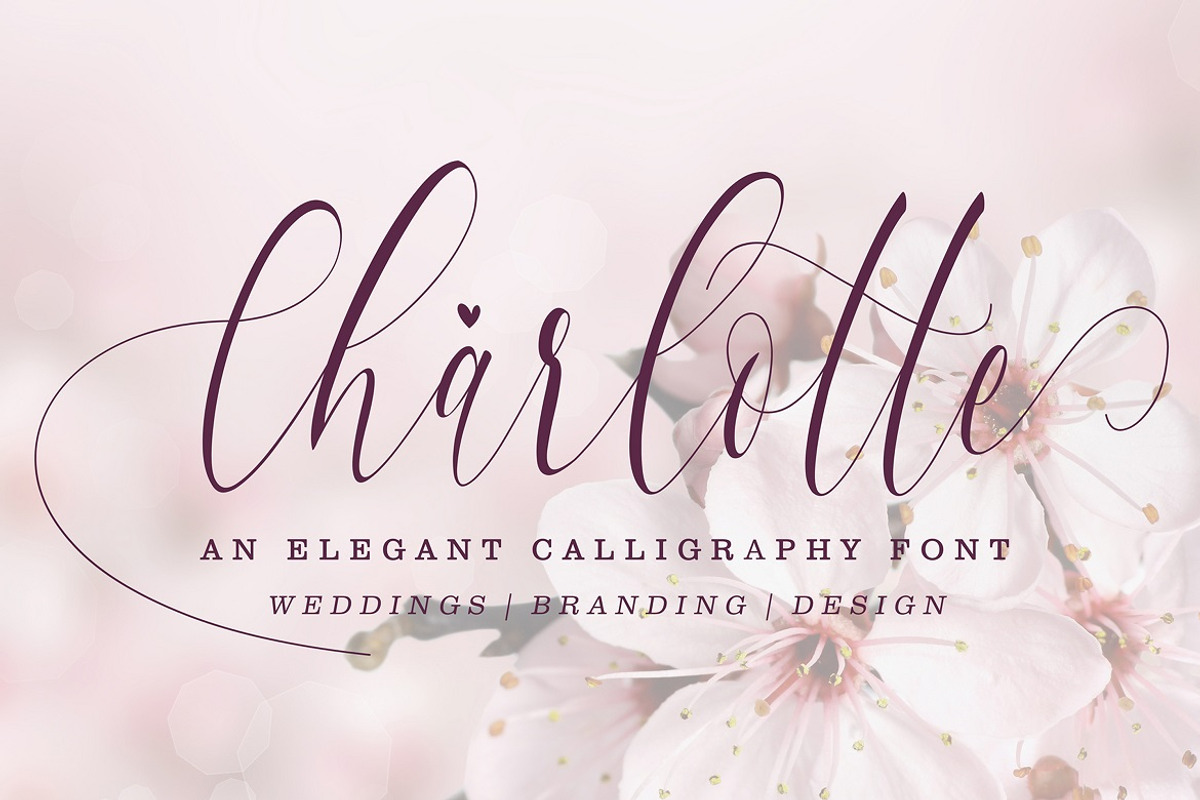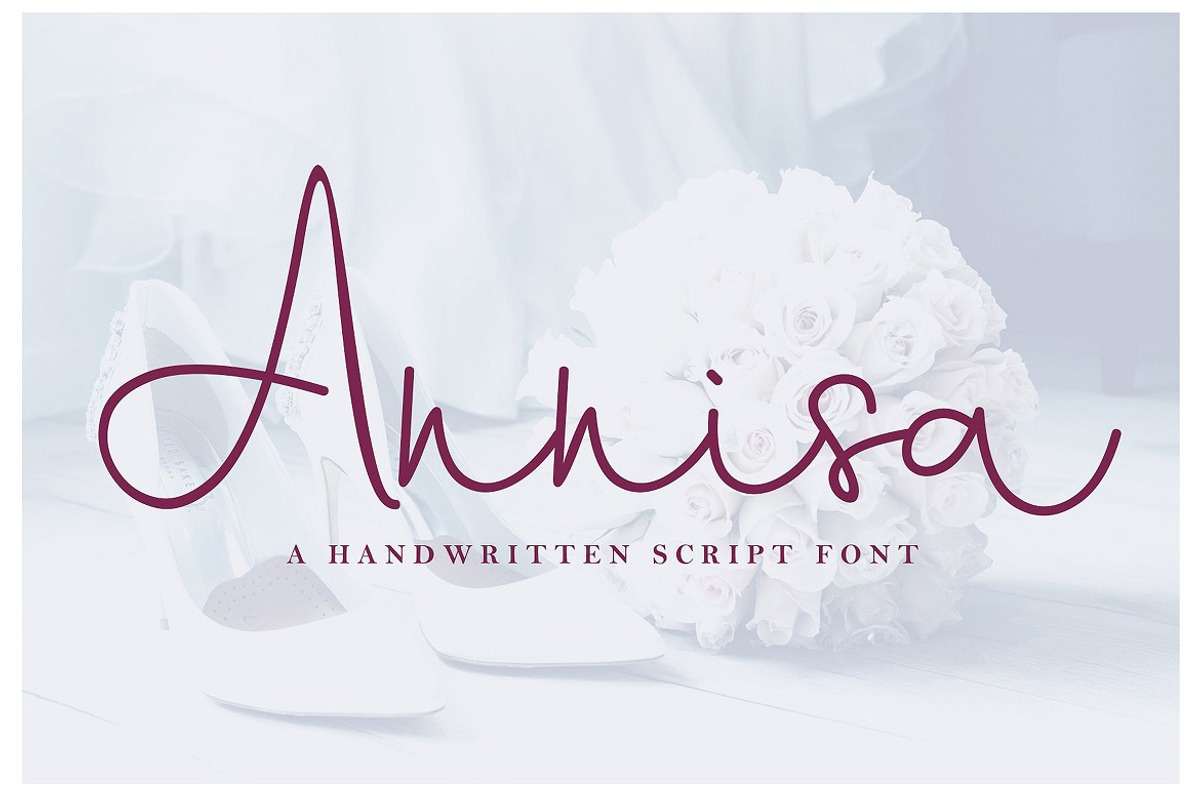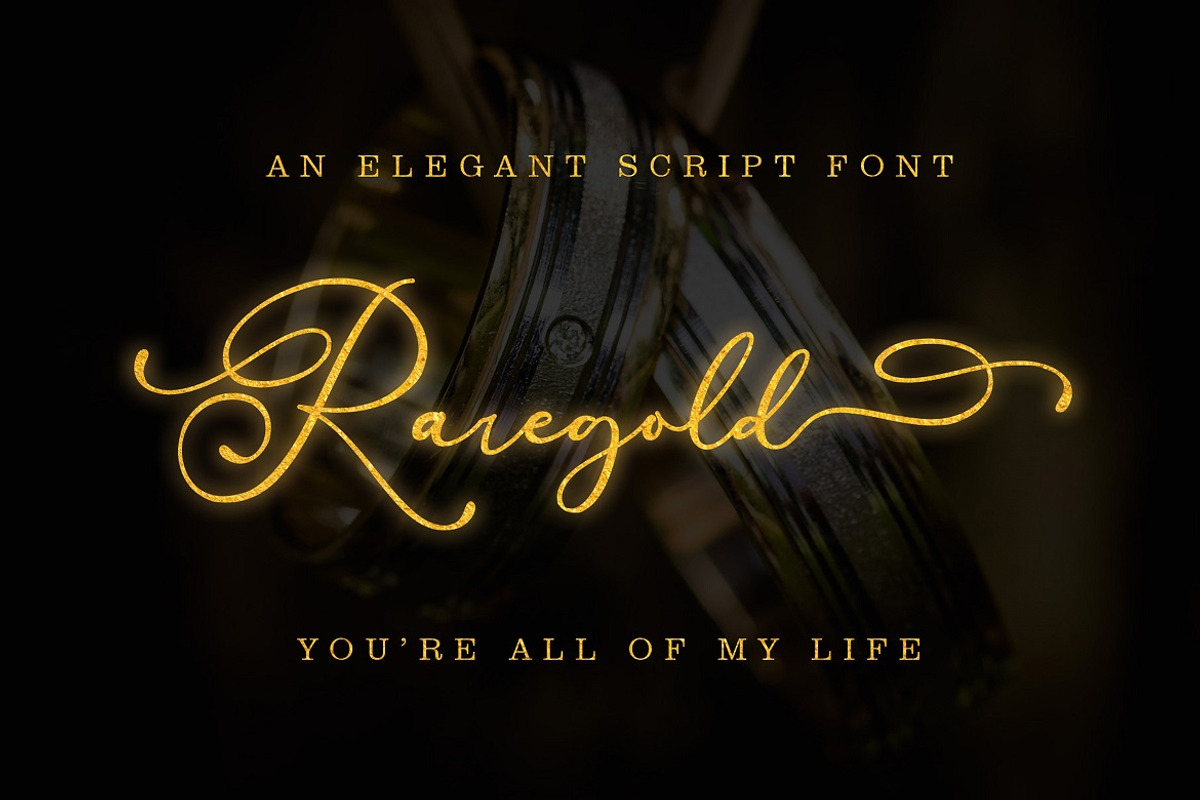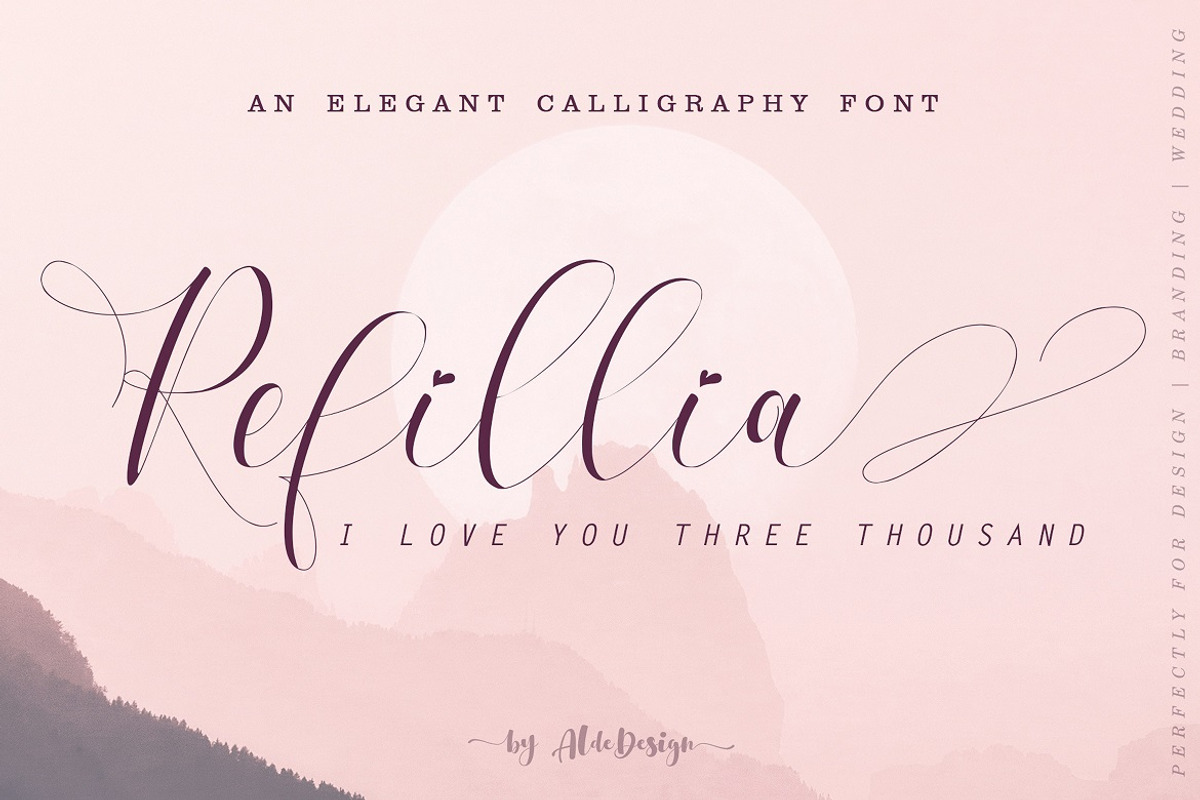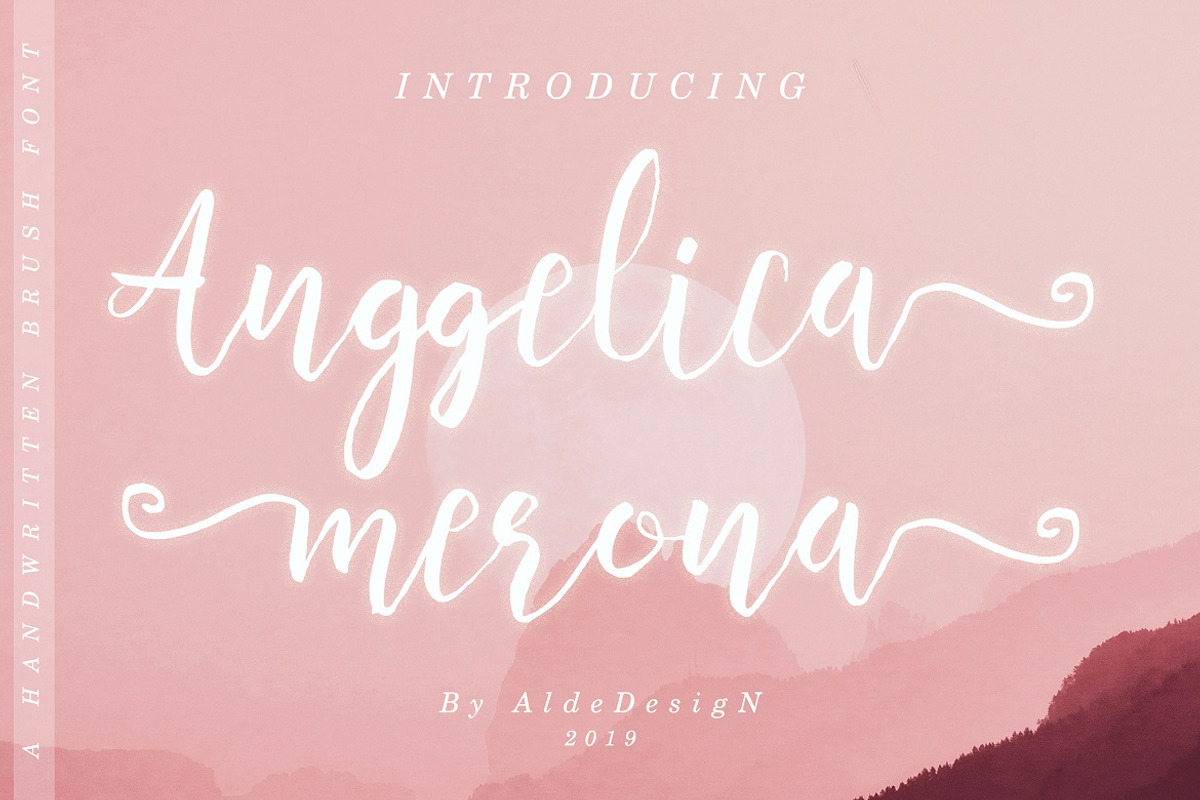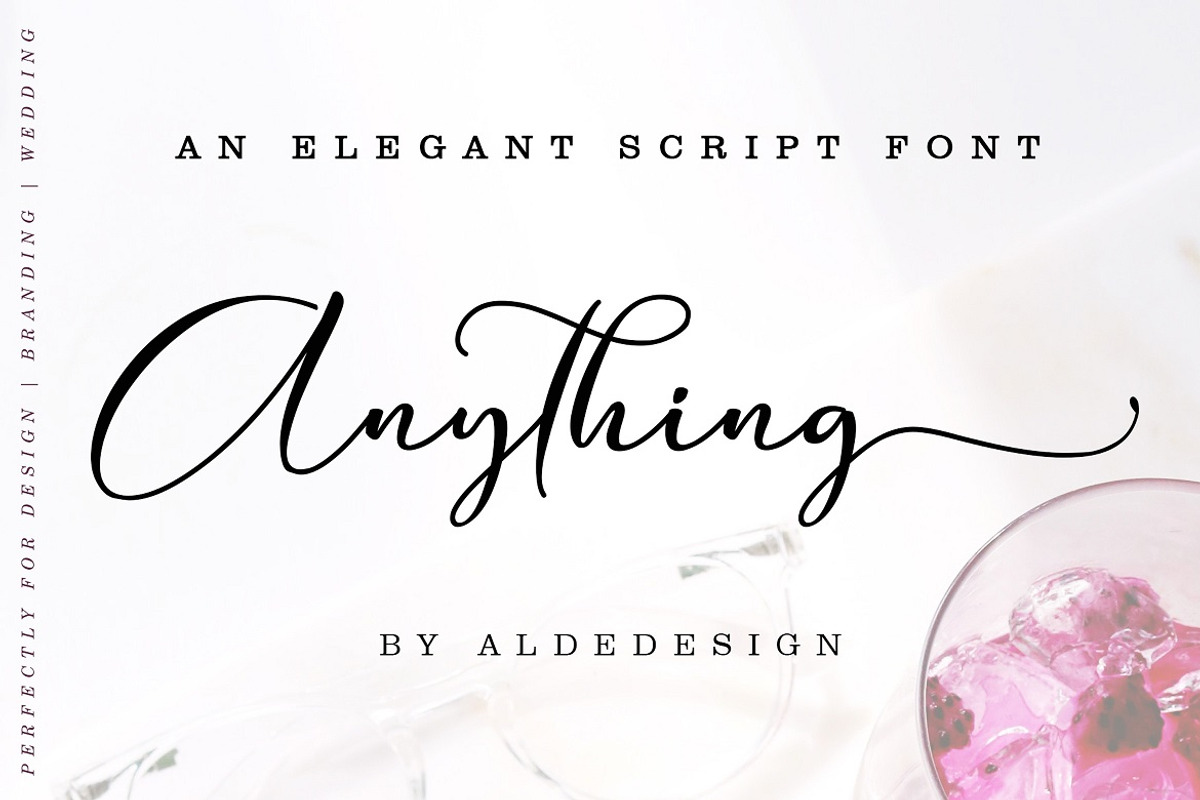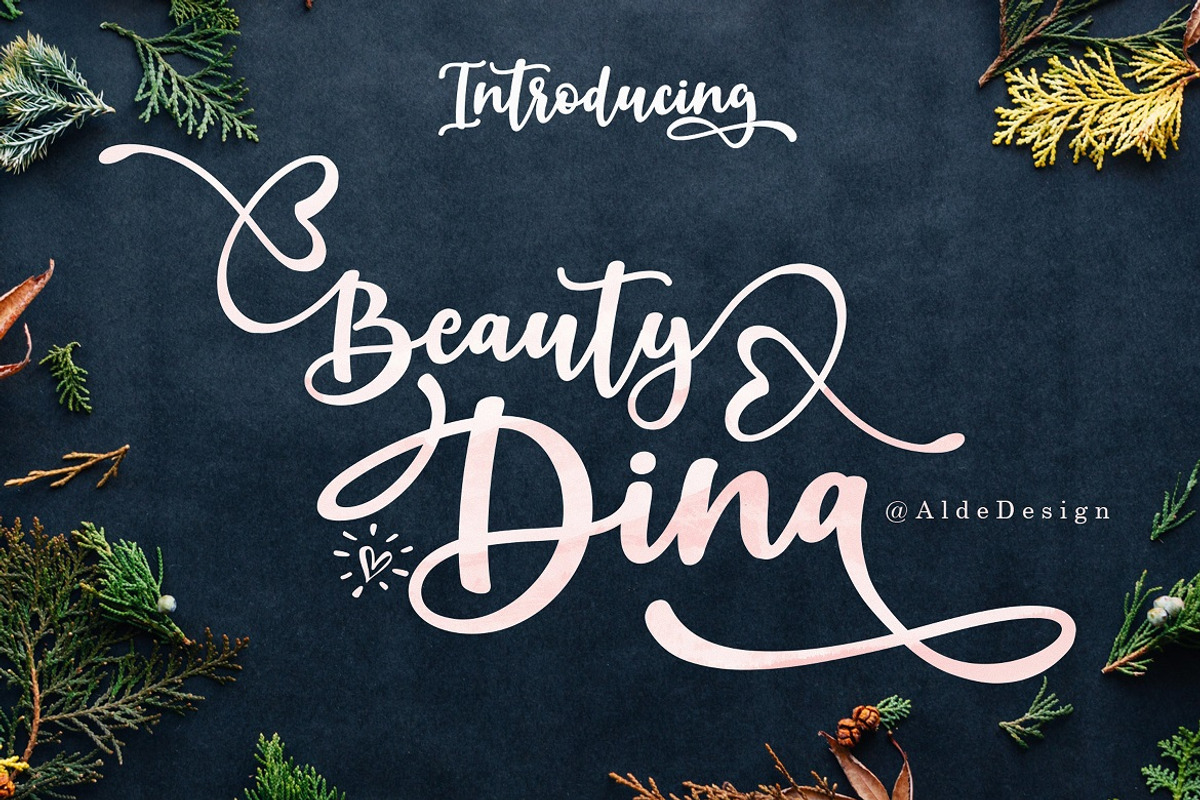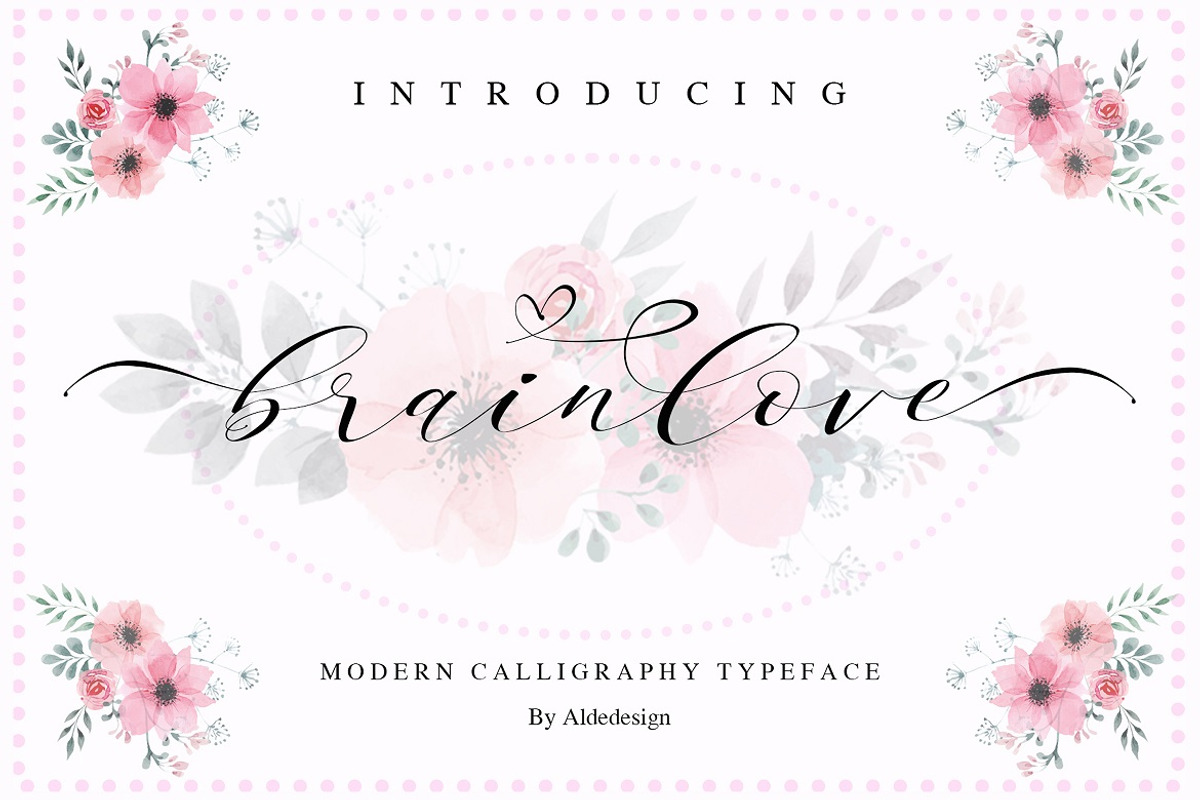
The 15 in 1 Wonderful Font Bundle
Our first exclusive bundle is an installment of "The 15 in 1 Wonderful Font Bundle" is filled with 15 Typefaces (more than 30 fonts), at 95% off!
This set includes 15+ typefaces with more than 30+ fonts of my most popular Calligraphy and Script fonts!
Aughlesia
Charlotte Calligraphy
With You Script Font
Everything Calligraphy
Refillia Calligraphy
Brainlove Calligraphy
Raregold Script
Marrisa Script
Dialova Calligraphy
Anggie & Maggie
Anything Script
Arellia Script
Beauty Dina
Annisa Script
Kimilove Script and Monogram
Parallove Script
Gulya Script
Anggelica Merona
This bundle is perfect for many different projects such as wedding, design, branding, logos, invitation, stationery, social media posts, advertisements, product packaging, product designs, label, photography, watermark, special events, or anything.